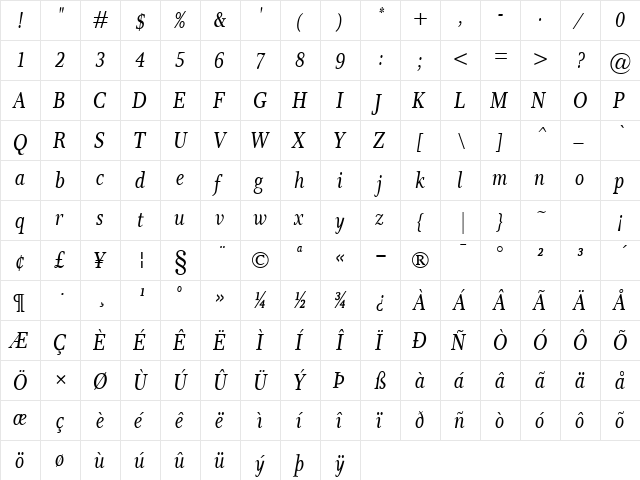
Res Publica Cond Italic Font Preview
Design Context for Res Publica Cond Typeface
Res Publica Cond is a composed and adaptable typeface that performs quietly and consistently across a wide range of design contexts. The dynamic lean of this cut emphasises speed and emphasis in any layout. Its narrow stance lets it pack a punch even in space-constrained designs.
Pro Tip: Try Res Publica Cond for annotation and caption copy alongside an upright companion — the contrast in angle creates a dynamic but ordered typographic system.